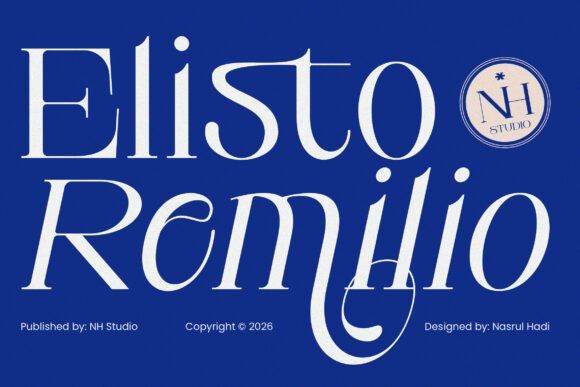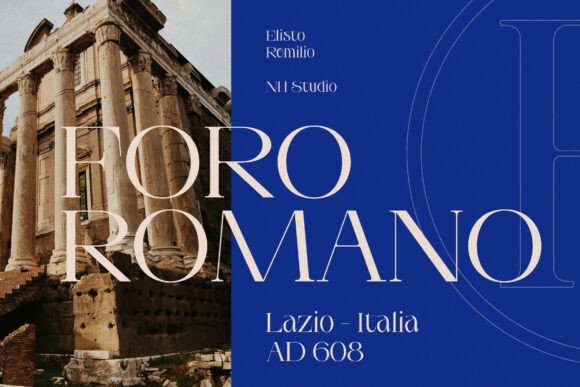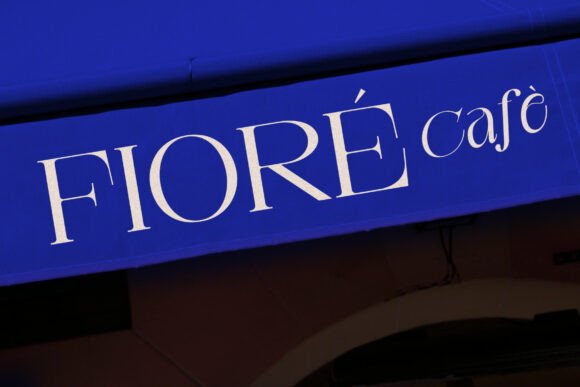
Introduction to Elistro Remilio Font
Introducing Elistro Remilio: A Typeface for Timeless Elegance Make a lasting impression with Elistro Remilio, the perfect blend of classic sophistication and modern versatility.
Designed to captivate, Elistro Remilio’s high-contrast strokes and graceful curves bring an air of luxury to any project This Elisto Remilio typeface features elegant, sharp serifs and a beautiful contrast between thick and thin strokes, creating a visual rhythm that is both classical and cutting-edge.
Key Features of Elistro Remilio Font
Why Choose Elistro Remilio Font?
Elistro Remilio Font offers exceptional quality and versatility, making it a valuable addition to your design toolkit. Whether you’re creating for personal projects or commercial use, Elistro Remilio Font delivers professional results.